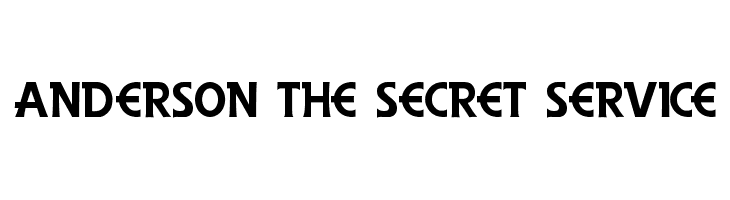
A whimsical, hand-drawn font with playful, artistic strokes.
An elegant, flowing script font with sweeping curves and delicate strokes.
An elegant, flowing script font with ornate uppercase and fluid lowercase letters.
A bold, brush-style font with dynamic, hand-drawn characters.
An ornate and decorative font with intricate swirls and embellishments.
An ornate, decorative font with intricate hollow designs and vintage flair.
A playful handwritten font with smooth, flowing lines and a casual style.
A dynamic, expressive handwritten font with sharp, elongated strokes.
An elegant script font with intricate loops and swirls, perfect for artistic projects.
A bold, geometric font with strong lines and a modern, vintage appeal.
A bold, geometric font with strong, uniform strokes and a striking presence.
A geometric, monospaced font with a technical, digital aesthetic.
A geometric, condensed font with angular and blocky letterforms.
A geometric, monospaced font with a modern, technical style.
A geometric, angular font with an extra-condensed and modern design.
A geometric, monospaced font with a technical and modern design.
A geometric, ultra-condensed font with a modern, technical look.
A bold, Gothic-inspired font with sharp, angular edges and exaggerated serifs.
A bold, Gothic-inspired font with sharp, angular edges and dramatic serifs.
A hand-drawn, expressive font with a sketch-like, graffiti-inspired style.
An artistic font resembling ancient cave drawings with unique, decorative characters.
Primitive pictographic symbols resembling ancient cave drawings.
A playful, hand-drawn font with bold strokes and a whimsical style.
A dynamic handwritten font with fluid strokes and playful elegance.
A decorative, bold font with a calligraphic and fantasy-inspired design.
A bold, geometric font with strong visual impact and modern appeal.
A bold, geometric font with modern, decorative elements and dot patterns.
A bold, italicized font with sharp angles and high contrast, perfect for dynamic designs.
A bold, dynamic font with strong diagonal emphasis and sharp serifs.
A bold, playful font with rounded edges and a hand-drawn feel.
A playful, bold font with rounded, bubbly characters ideal for fun projects.
An elegant, flowing script font with varied stroke thickness and interconnected letters.